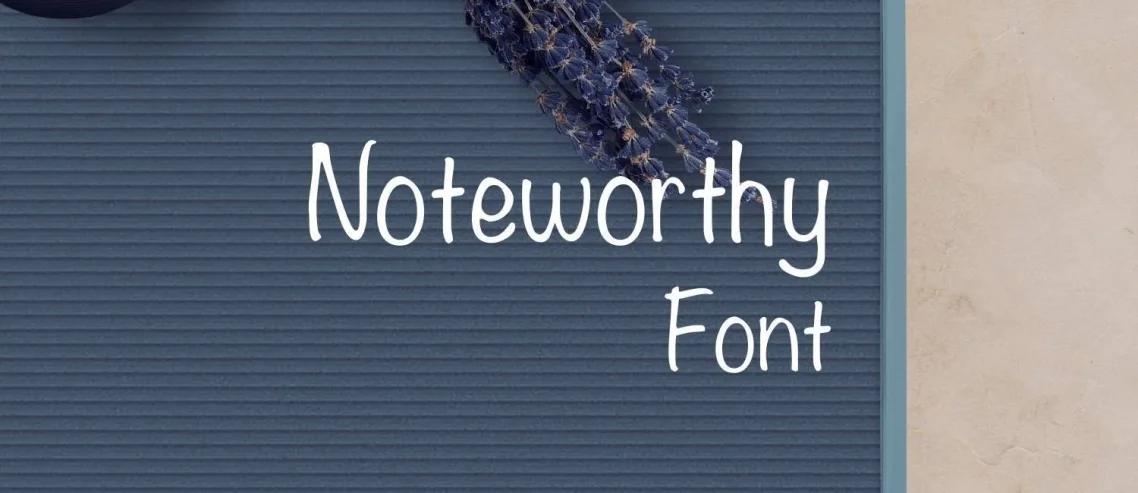
Noteworthy Font is a typeface created by John Hudson and launched by Microsoft Corporation in 2002. The font’s design draws inspiration from early 20th-century work. It is a handwritten typeface with a moderate x-height and wide proportions.
Noteworthy Font Info
Name | Noteworthy Font |
Designer | John Hudson |
Style | Handwritten |
Font Family
- Noteworthy Light
- Noteworthy Regular
- Noteworthy Bold